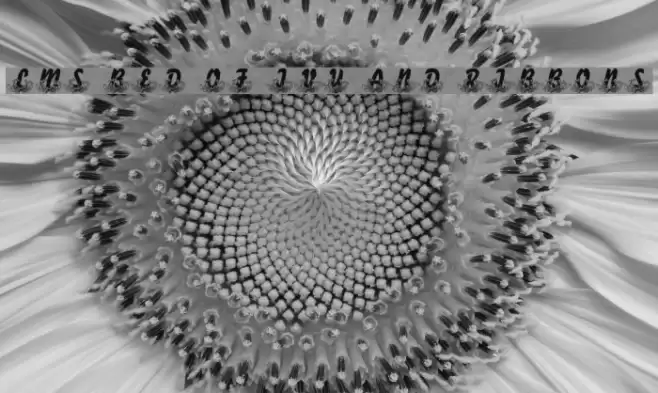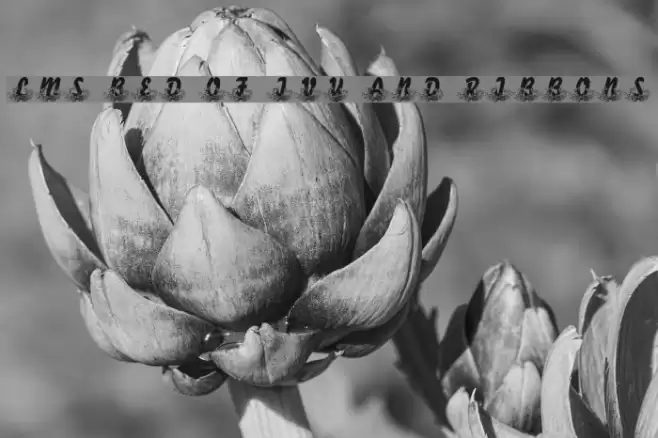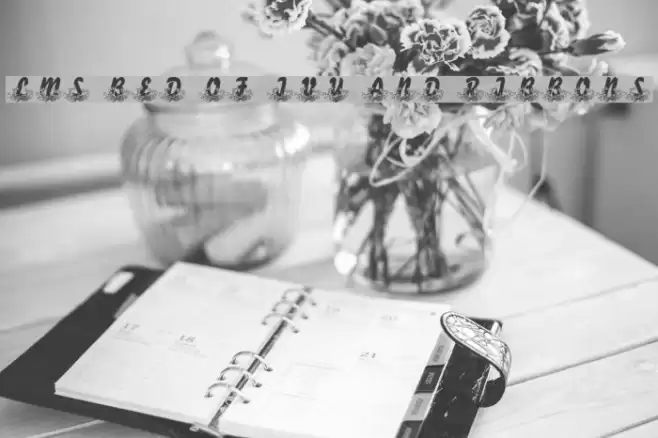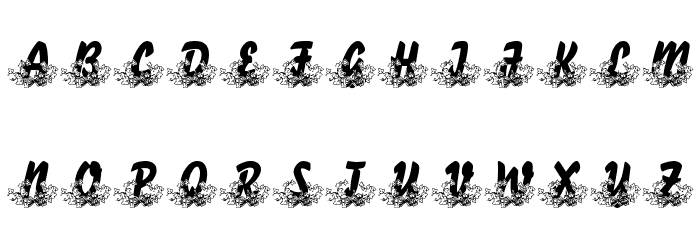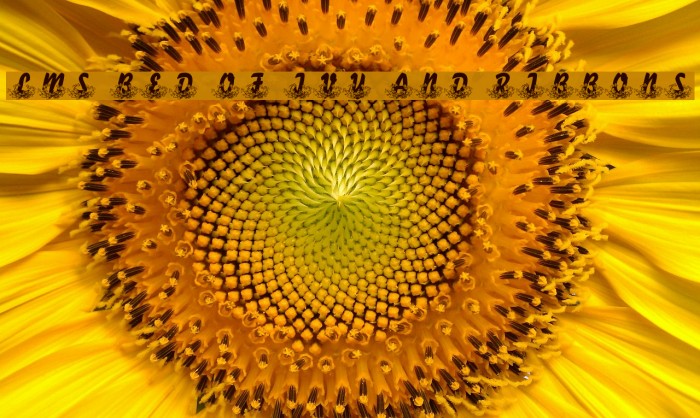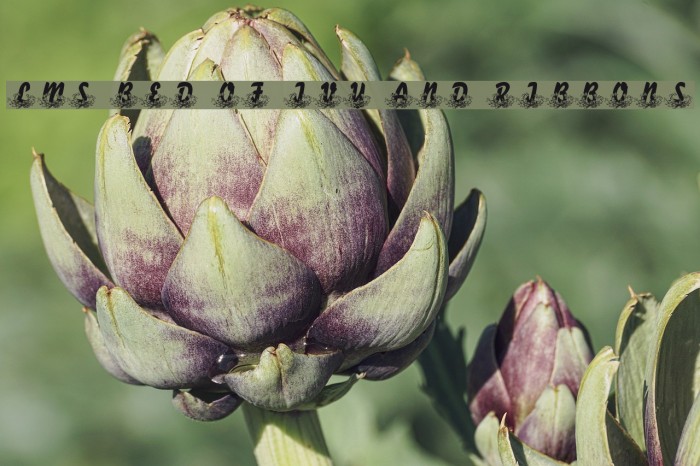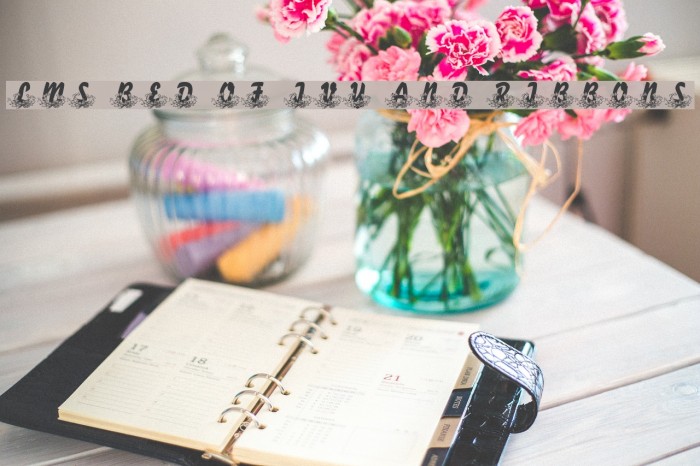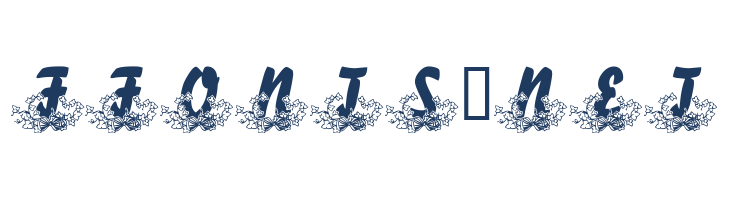
LMS Bed of Ivy and Ribbons Font
LMS Bed of Ivy and Ribbons Description
This font features a whimsical and decorative style, combining bold, flowing script letters with intricate ivy and ribbon embellishments. Each character is adorned with detailed floral and ribbon motifs, creating a sense of elegance and fantasy. The uppercase and lowercase letters maintain a consistent design theme, with the embellishments adding a unique touch to each character. The font's artistic nature makes it ideal for creative projects that require a touch of sophistication and charm.
A decorative script font with ivy and ribbon embellishments from Uncategorized fonts.
- Proposed Projects: Ideal for wedding invitations, greeting cards, branding for luxury products, and decorative posters.
- Use Case: Logos, Headlines, Invitations